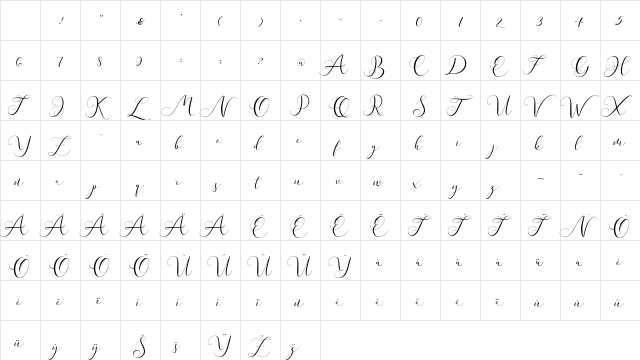
Complete Andieny Regular glyph index. Displaying only characters natively supported by Andieny Regular font.
Andieny is a composed and adaptable typeface that performs quietly and consistently across a wide range of design contexts.